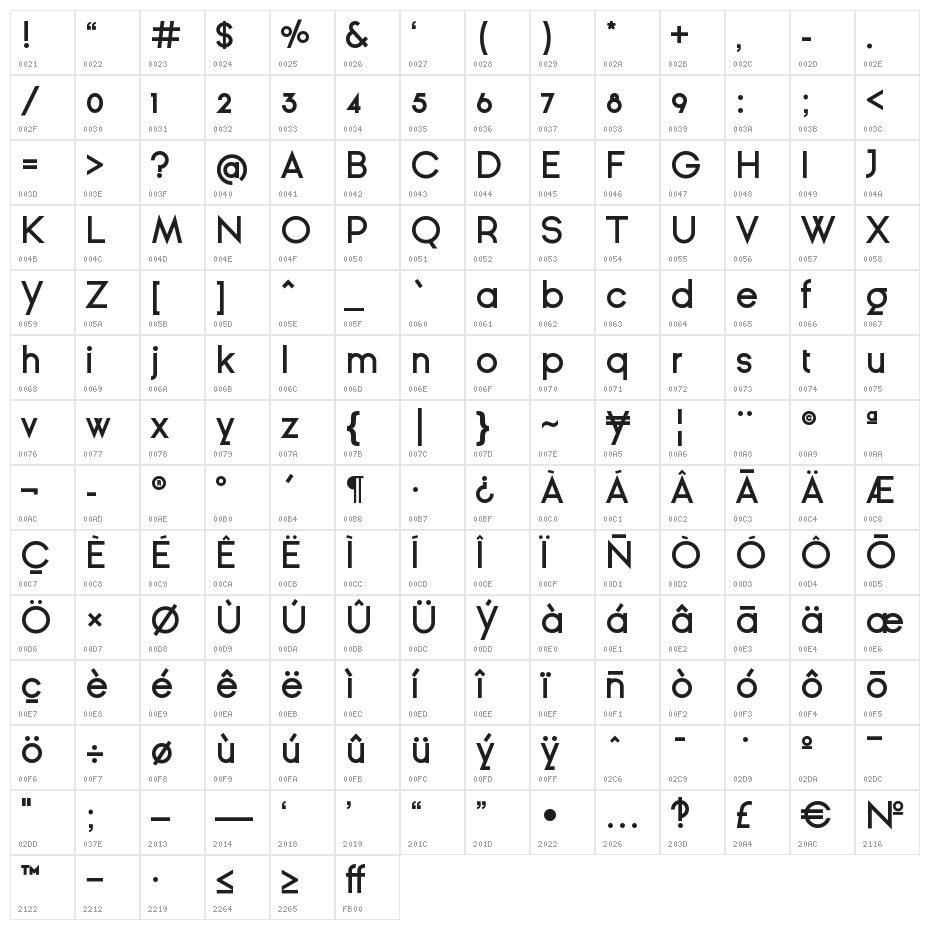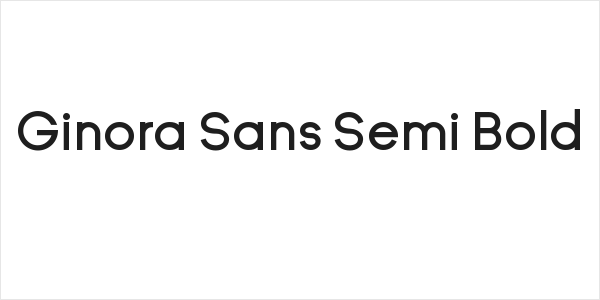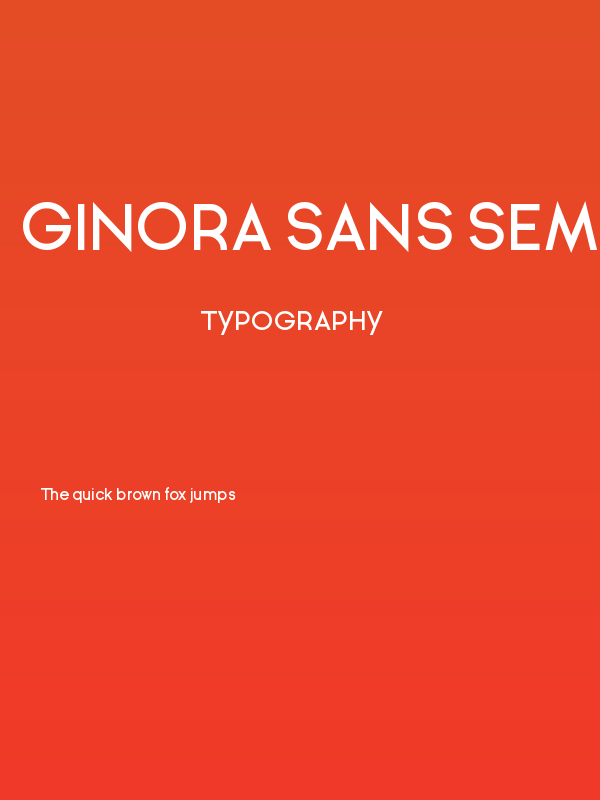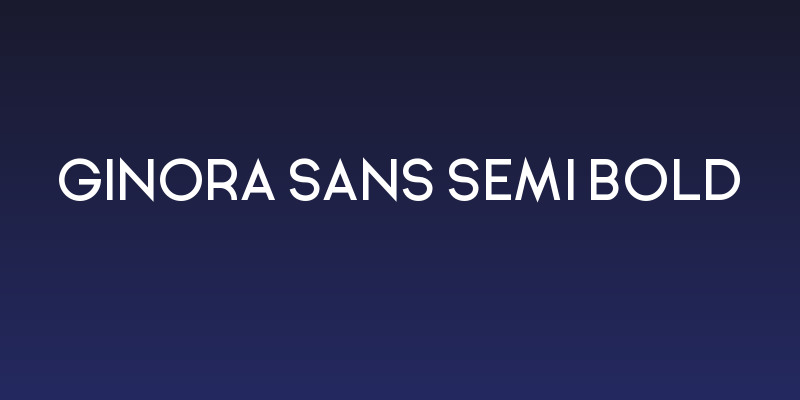
Ginora Sans Semi Bold Font
Ginora Sans Semi Bold Description
This font features a clean and modern sans-serif design with a semi-bold weight. The characters are well-proportioned, offering a balanced and harmonious appearance. The uppercase letters are bold and assertive, while the lowercase letters maintain a friendly and approachable feel. The numerals are clear and easy to read, making them suitable for various applications. Special characters are distinct and well-integrated into the overall design. The font's simplicity and clarity make it versatile for both digital and print media.